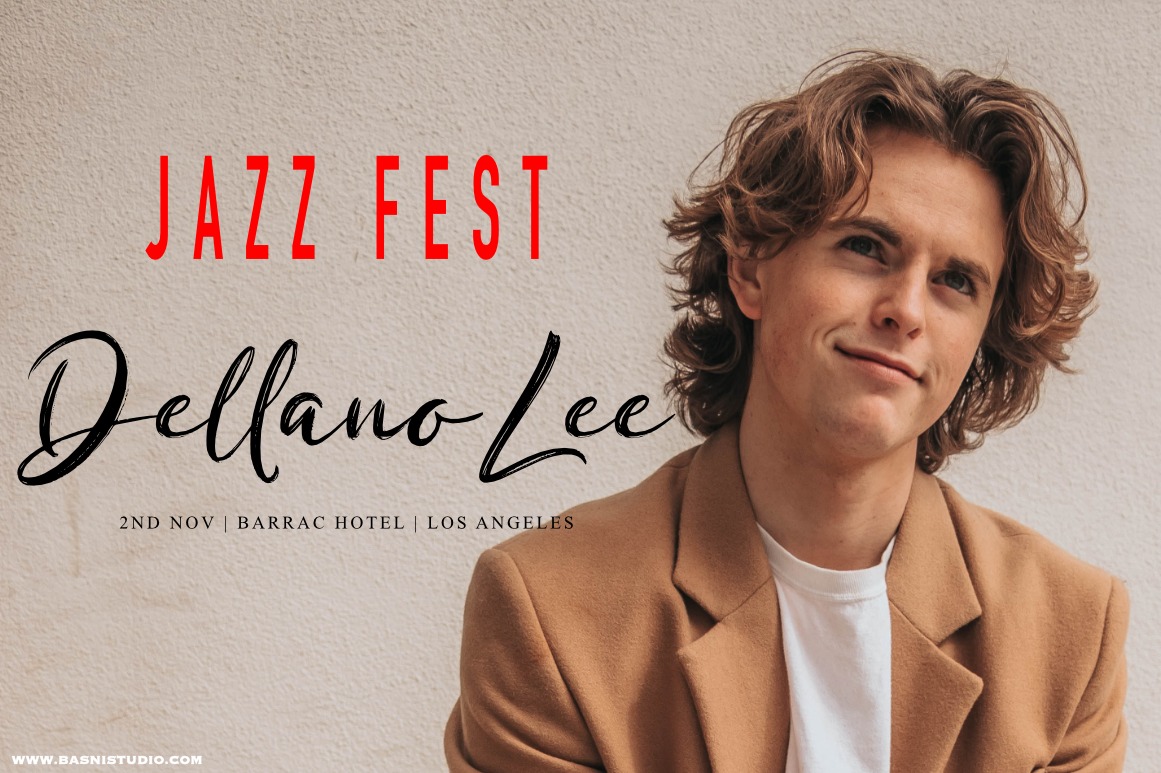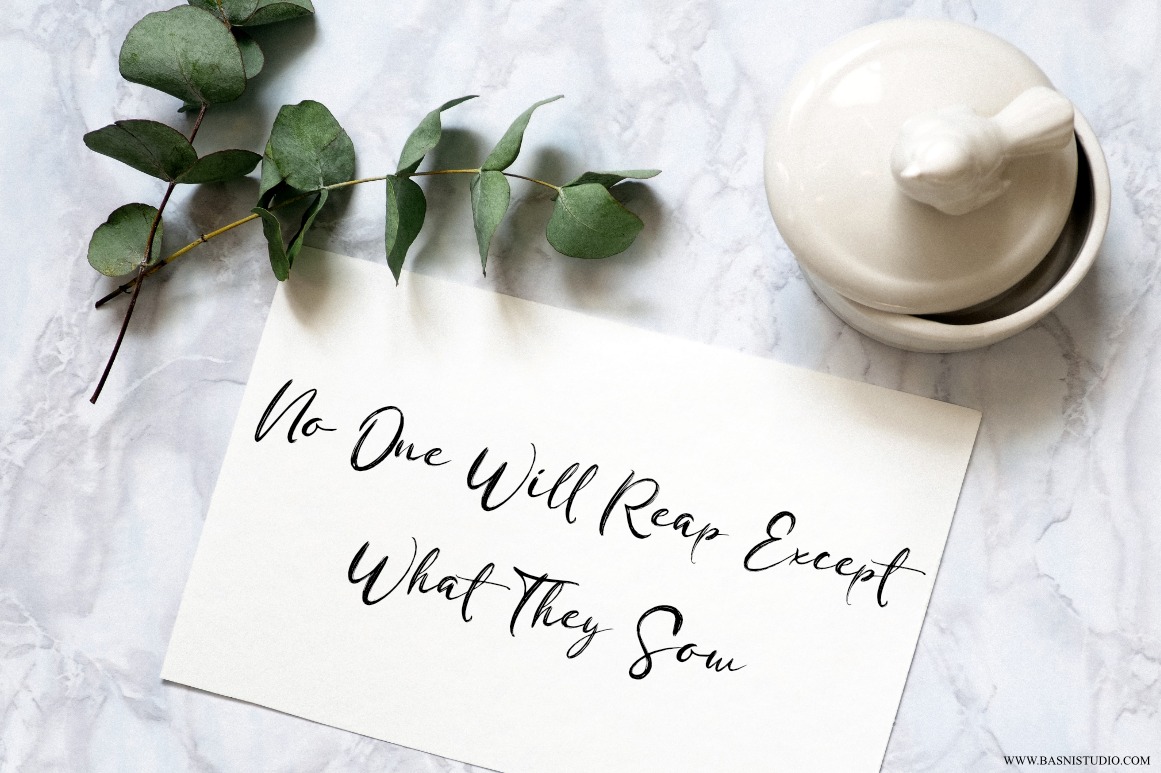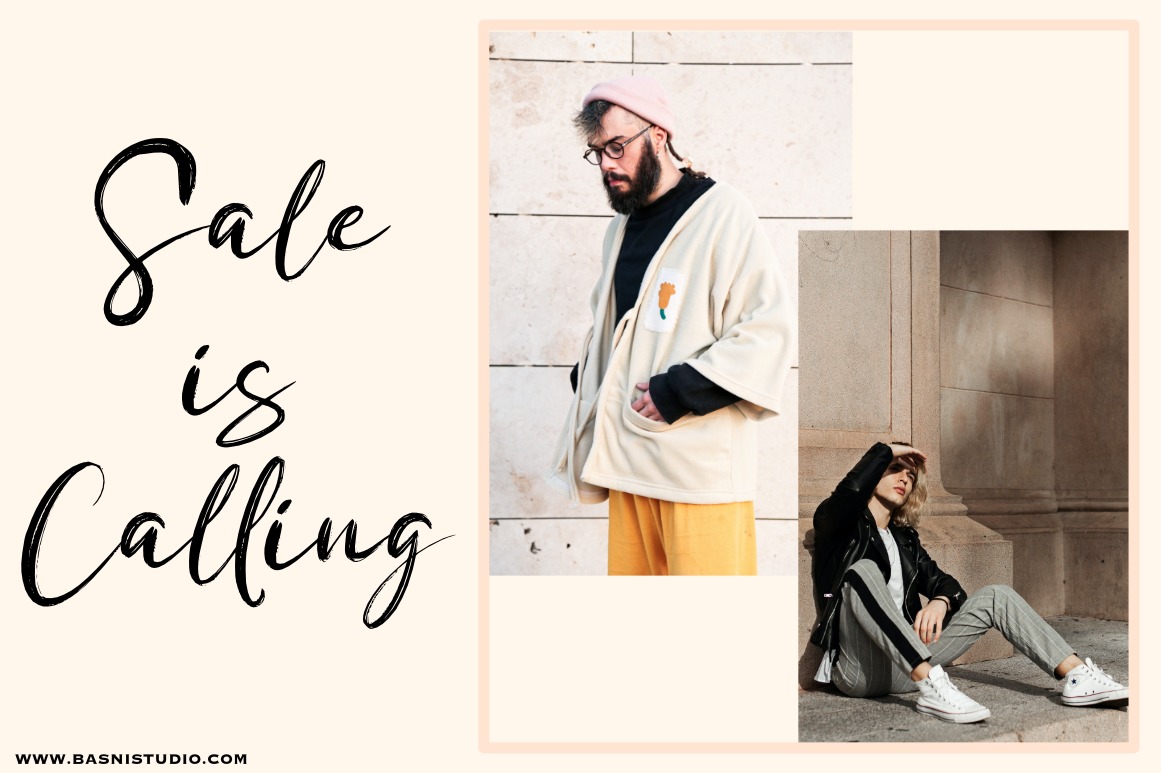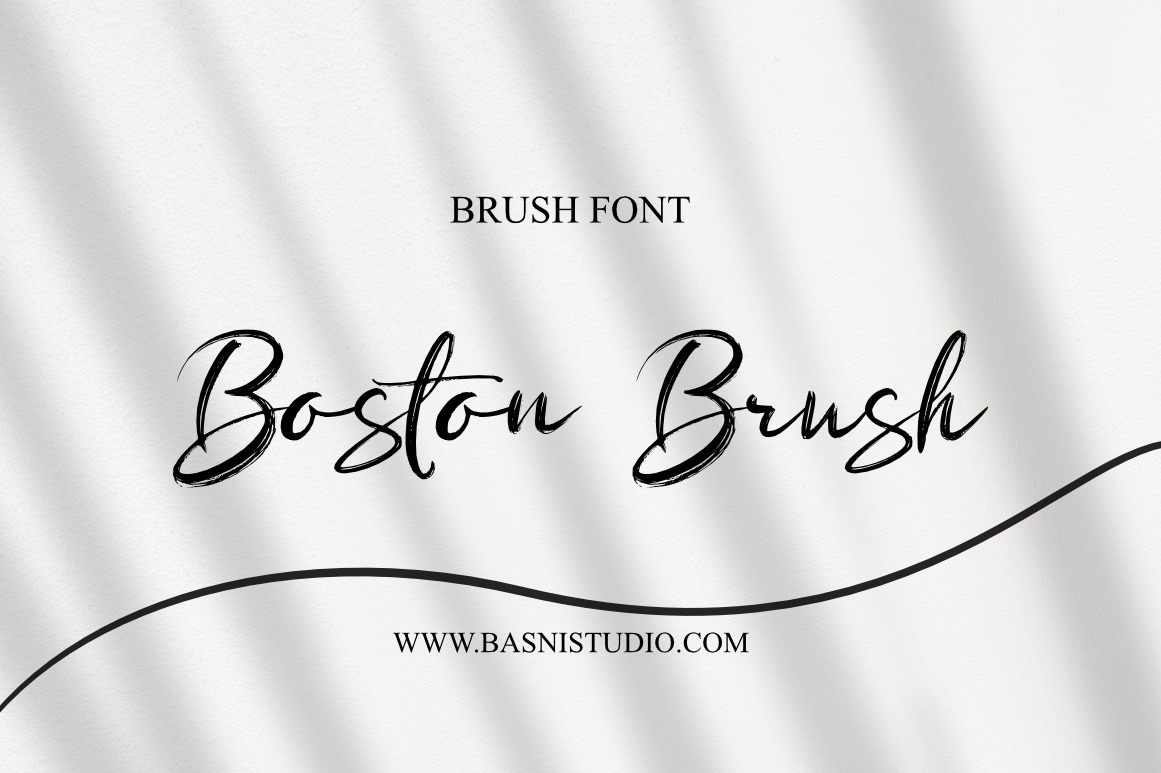
Boston Brush Font
Boston Brush Font is made with original handwriting, with a quick technique so that the font looks natural and textured. Boston Brush is perfect for branding, websites, design invitation, and editorial designs. Includes all upper and lower case letters, multilingual support & punctuation. everything can be easily accessed using software that supports OpenType.